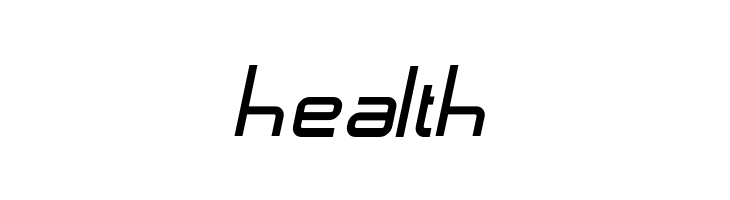
A clean, monospaced typeface with uniform spacing and modern design.
A bold, oblique monospaced font with a modern and dynamic style.
A bold, clean sans-serif font with a modern and straightforward style.
A clean, modern sans-serif font with uniform stroke width and excellent readability.
A modern, oblique sans-serif font with a sleek and dynamic style.
A bold, oblique sans-serif font with a modern and dynamic style.
A classic serif typeface with elegant, traditional letterforms and moderate contrast.
A bold, italic serif font with a classic and elegant style.
A bold, classic serif font with strong, authoritative strokes.
An elegant serif font with italic styling, perfect for classic and sophisticated designs.
A compact, monospaced serif typeface with a clean and orderly appearance.
A bold, geometric font with a segmented, filled design.
A rugged, distressed font with a hand-drawn, edgy style.
A retro, tech-inspired font with bold, blocky characters enclosed in rounded squares.